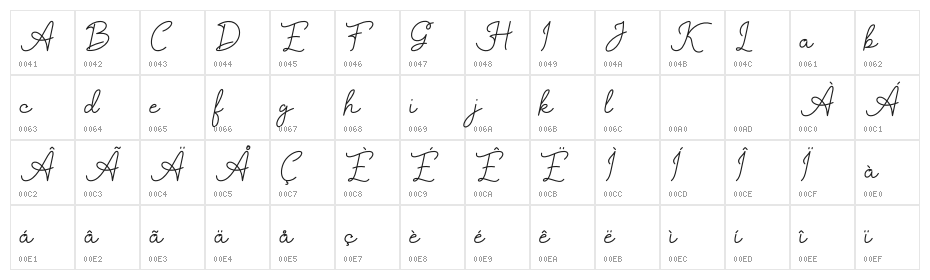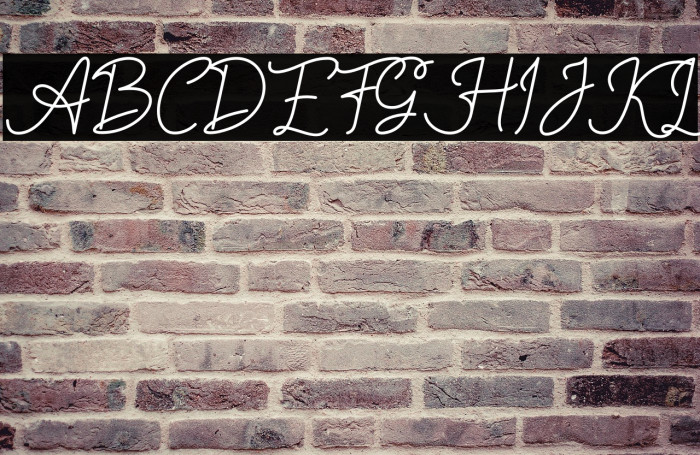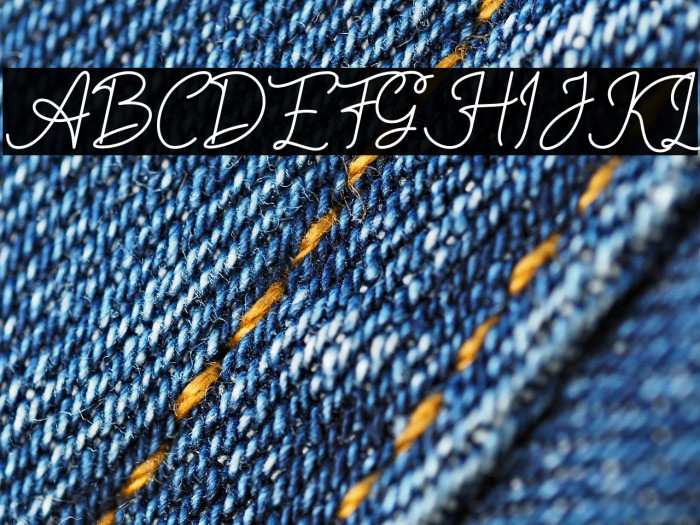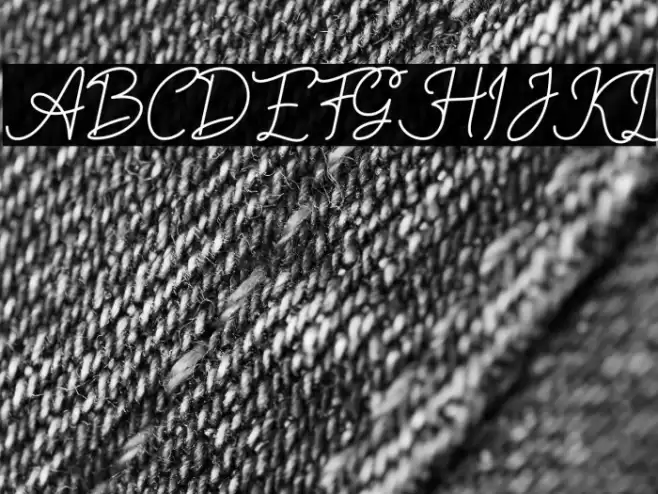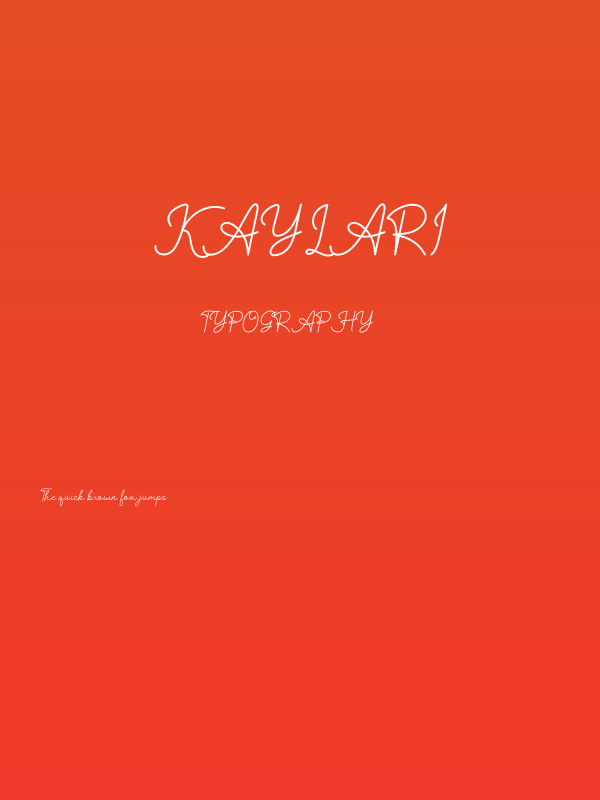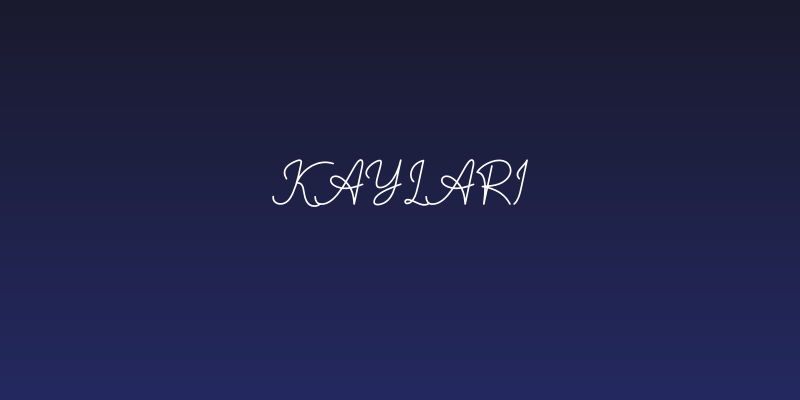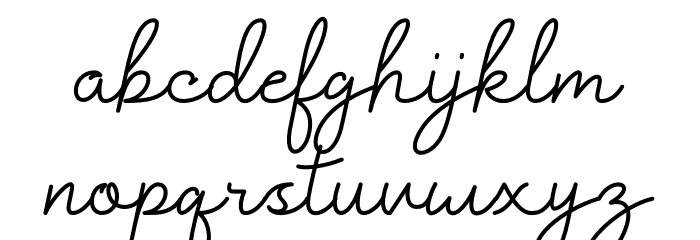
Kaylari Font
Kaylari Description
This elegant script font features fluid, cursive strokes that give it a handwritten appearance. The uppercase letters are gracefully elongated, with smooth curves and loops that add a touch of sophistication. The lowercase letters maintain a consistent flow, enhancing readability while preserving the font's artistic flair. Numbers are styled to match the overall aesthetic, with a slight slant that complements the letters. Special characters are thoughtfully designed to integrate seamlessly with the rest of the font, making it versatile for various uses. The overall impression is one of elegance and refinement, suitable for projects that require a personal or artistic touch.
Overall StyleElegant
Use CaseLogos, Invitations, Artistic projects
Proposed ProjectsIdeal for wedding invitations, greeting cards, personal branding, and artistic projects.